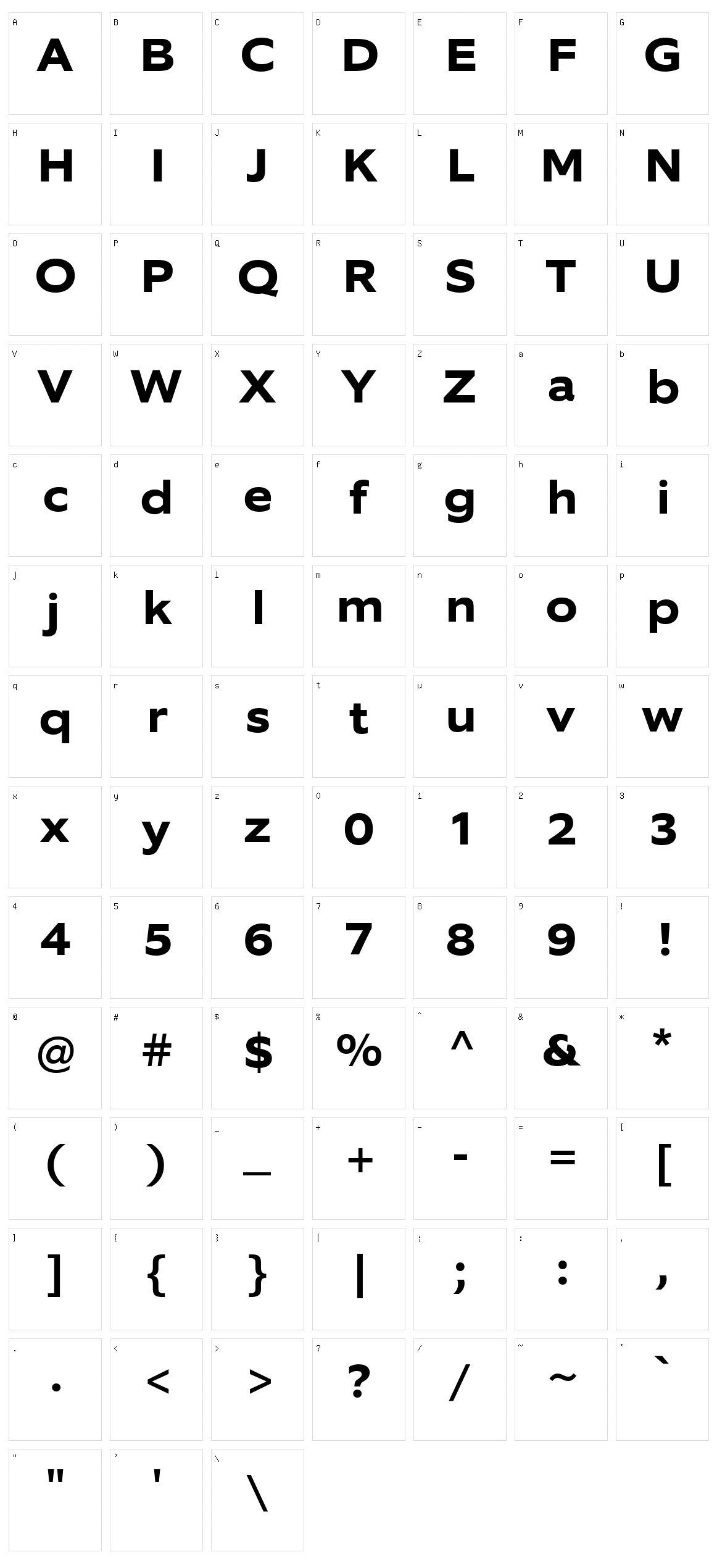
The free font Fraset Display is carefully designed by Maulana Creative, showcasing a thoughtful balance of creativity and usability and falls under the Sans serif font style. When you download the ZIP file, it contains only 65.02 KB of font files, making it lightweight and quick to download. Please review the license details below to understand permitted usage and distribution rights. If license information is not available, we recommend using this font for personal projects only or contacting the author directly for commercial usage permissions.